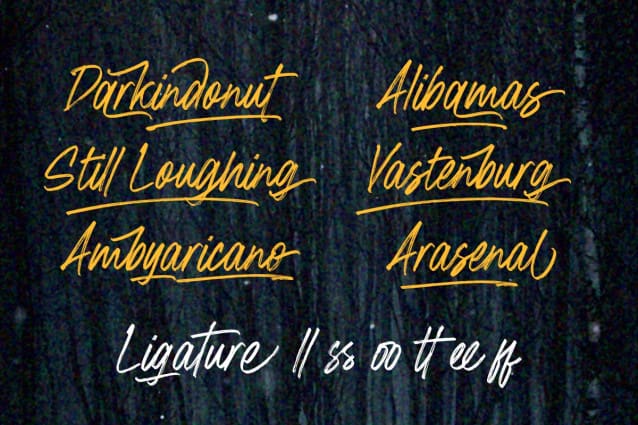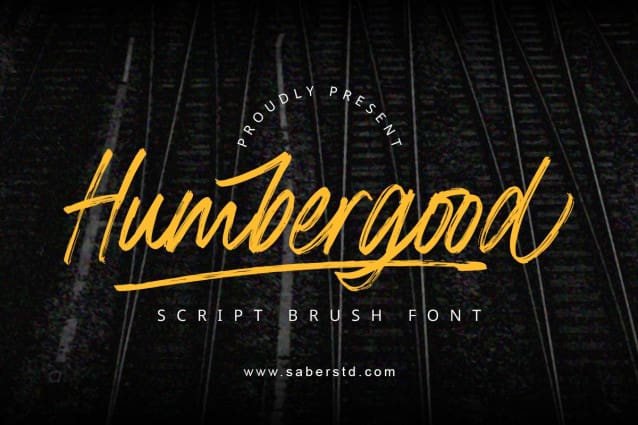
Humergood Font
Humergood Font is a modern and awesome handwriting font with a natural style. This font is suitable for your current or classic design: Signature. Logo. Branding. Invitation. Blog Headline and many more.